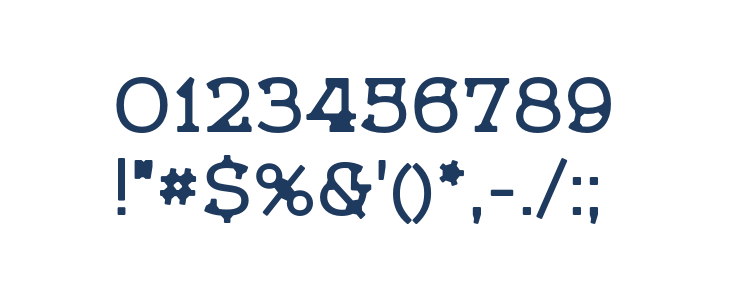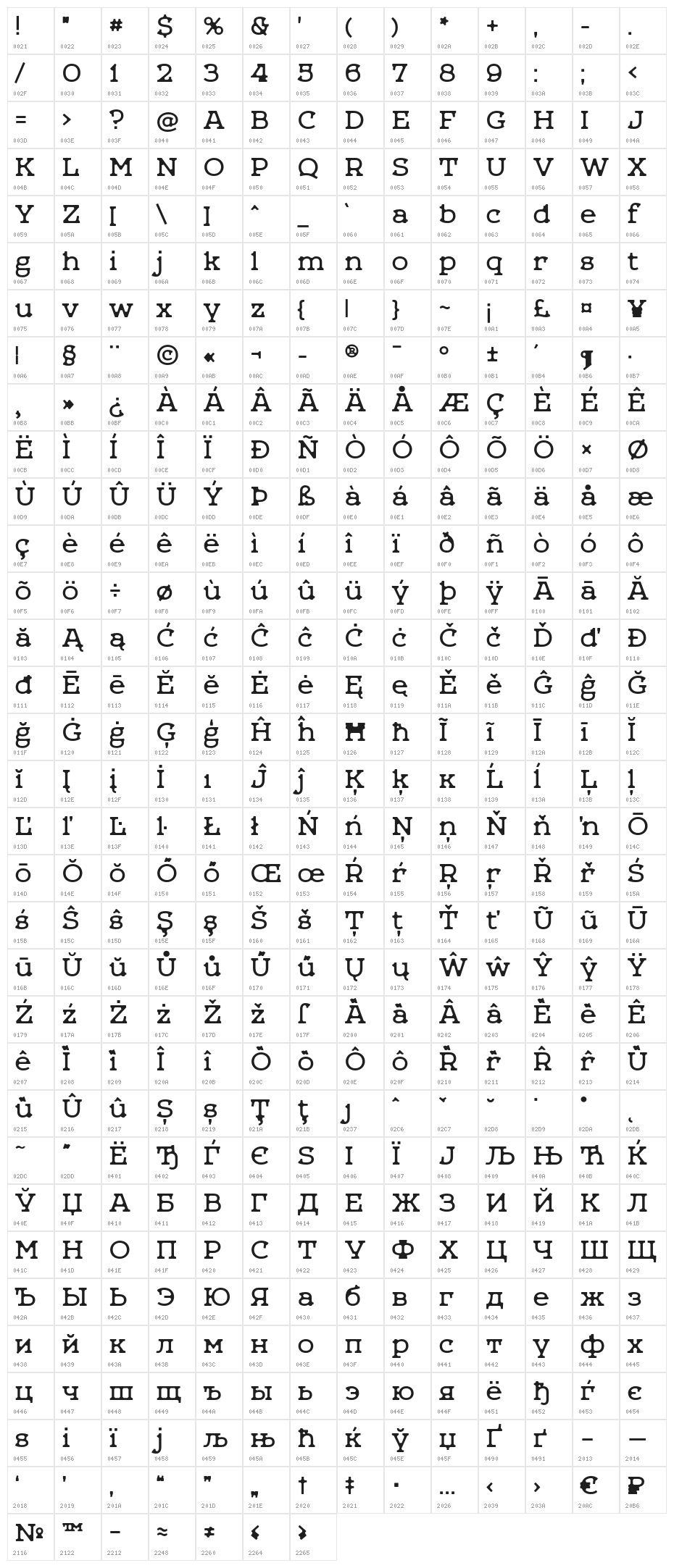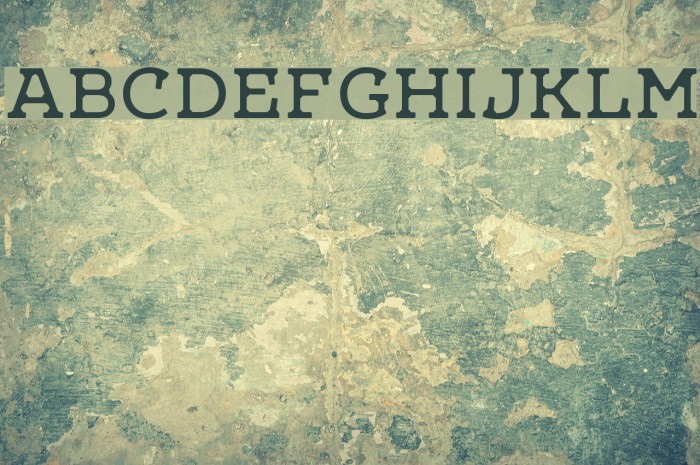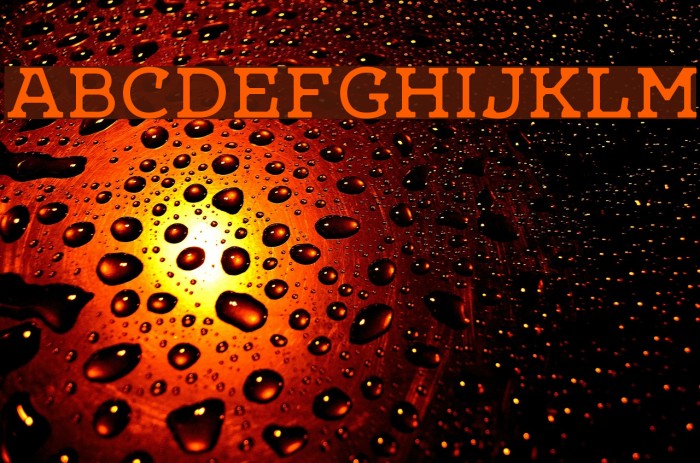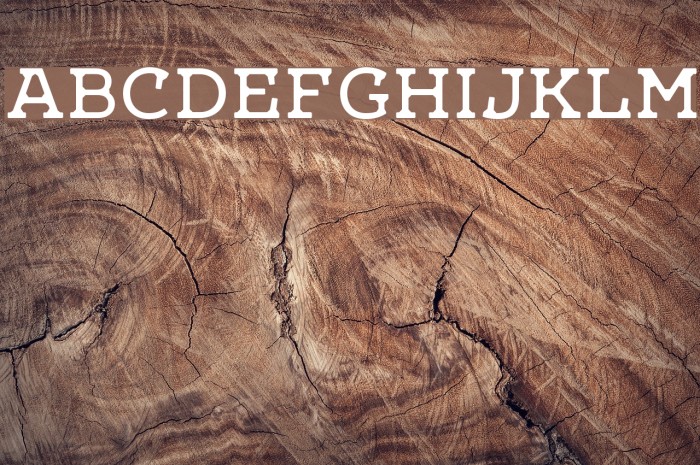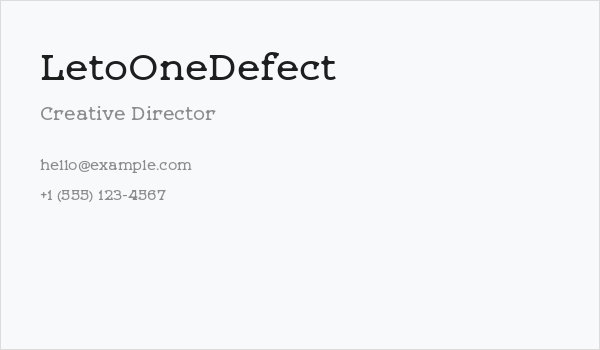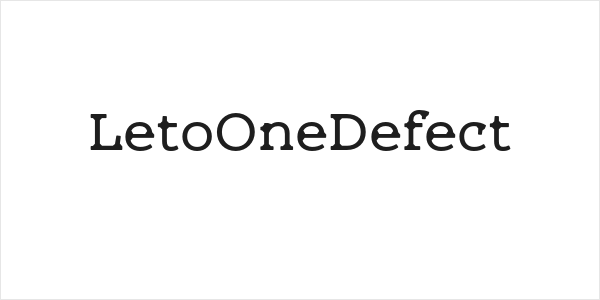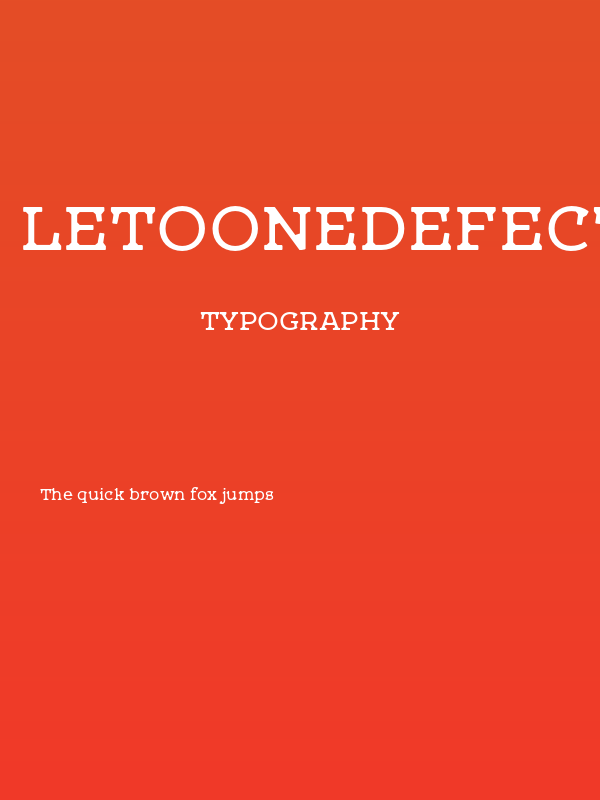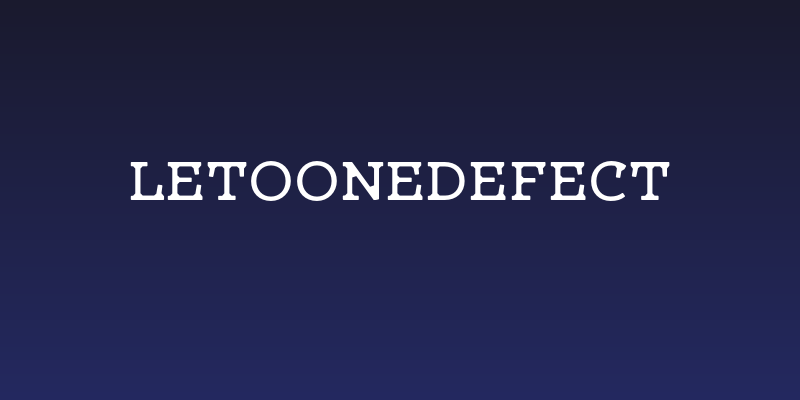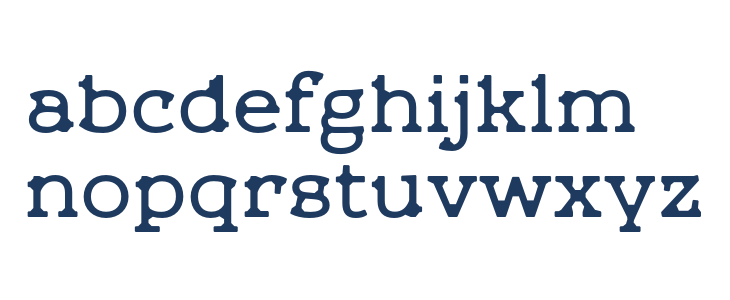
LetoOneDefect Font
LetoOneDefect Description
This font features a bold and robust slab serif style, characterized by thick, block-like serifs that give it a strong and authoritative presence. The uppercase letters are uniform in height, while the lowercase letters maintain a consistent x-height, providing a balanced and cohesive look. The numerals are distinct and easily readable, with a slight curve that adds a touch of elegance. Special characters are well-defined, ensuring clarity in various contexts. The overall design is modern yet retains a classic feel, making it versatile for numerous applications.